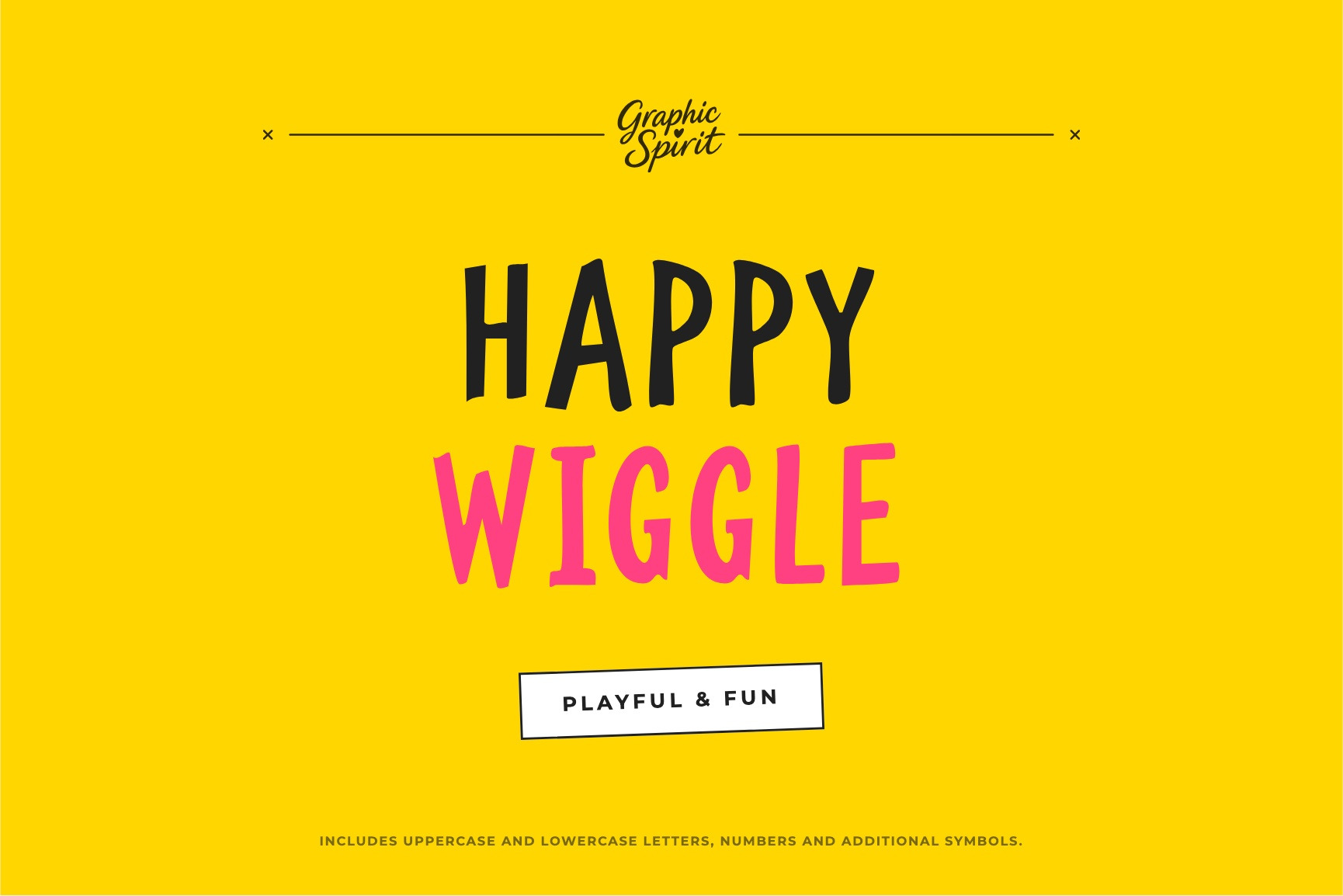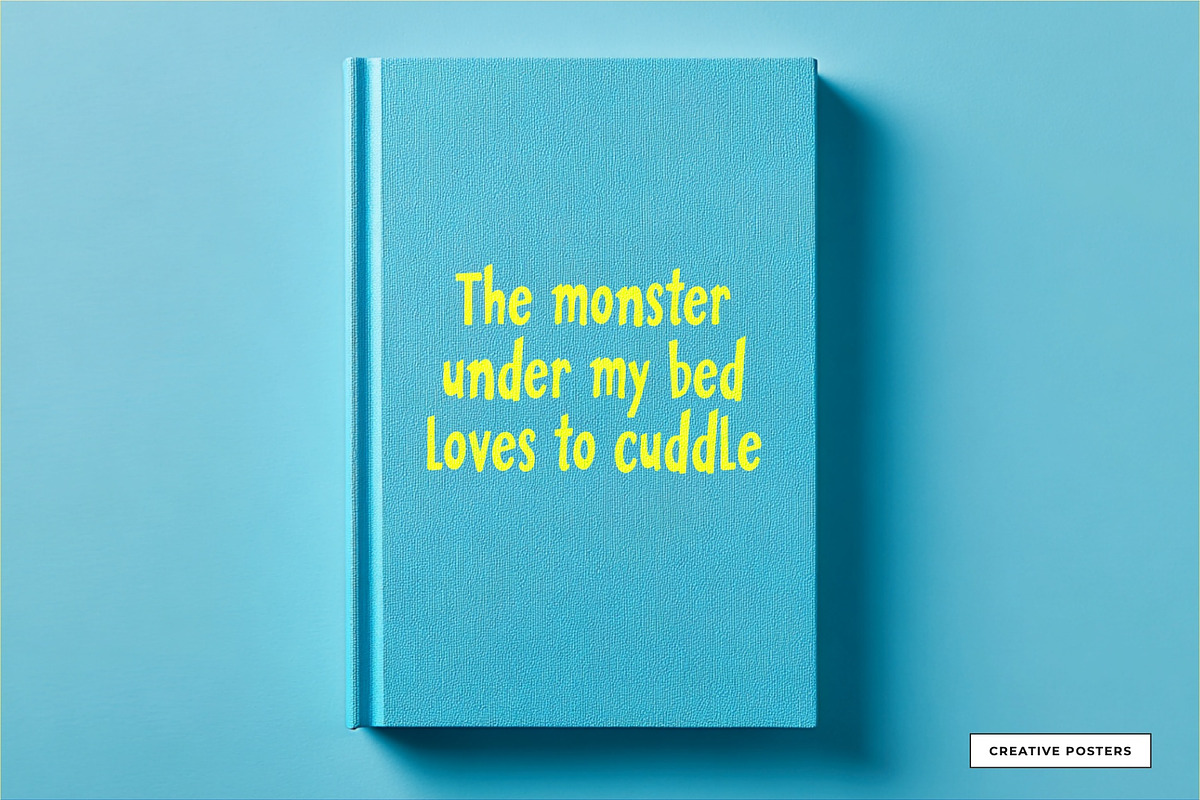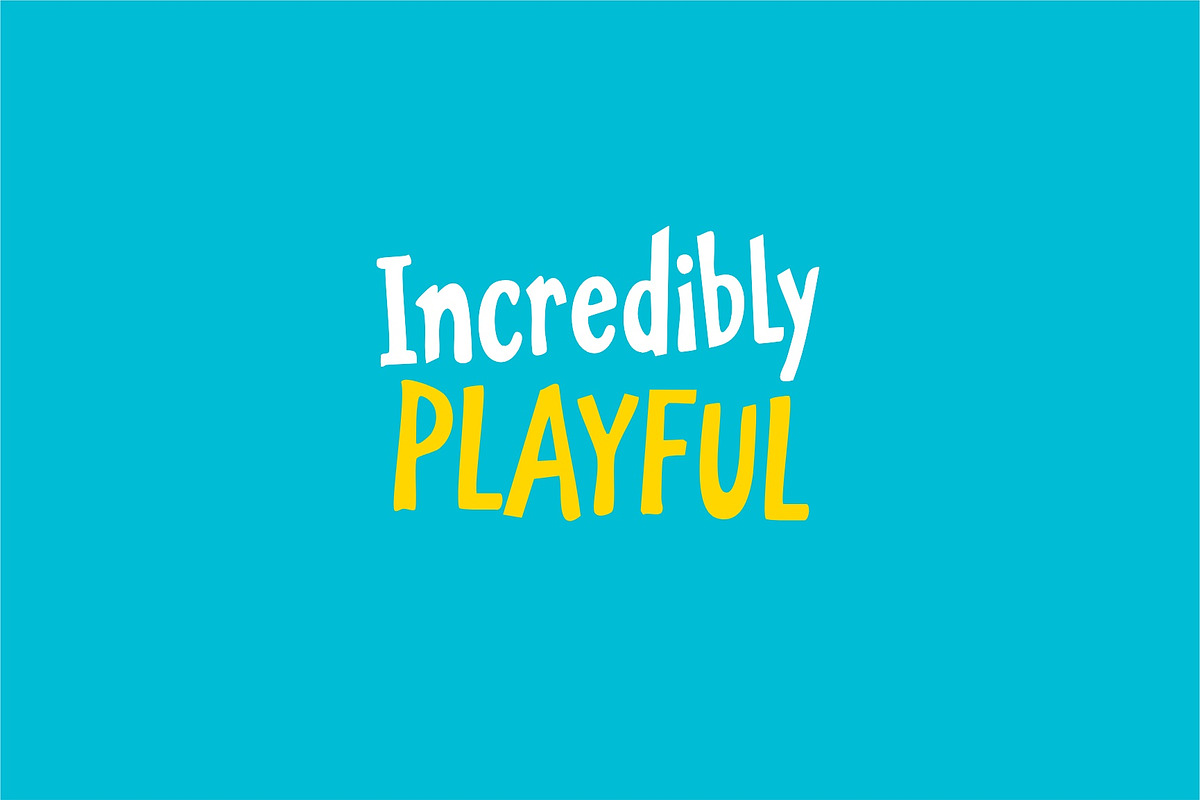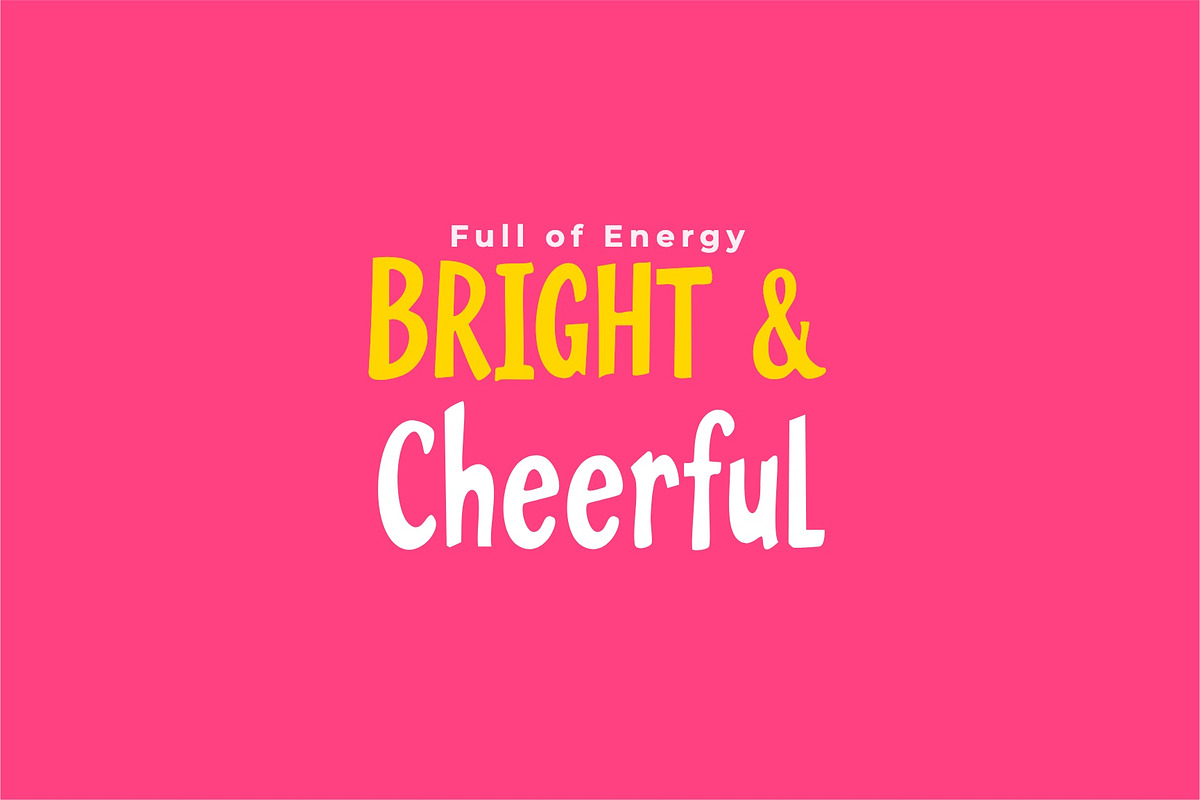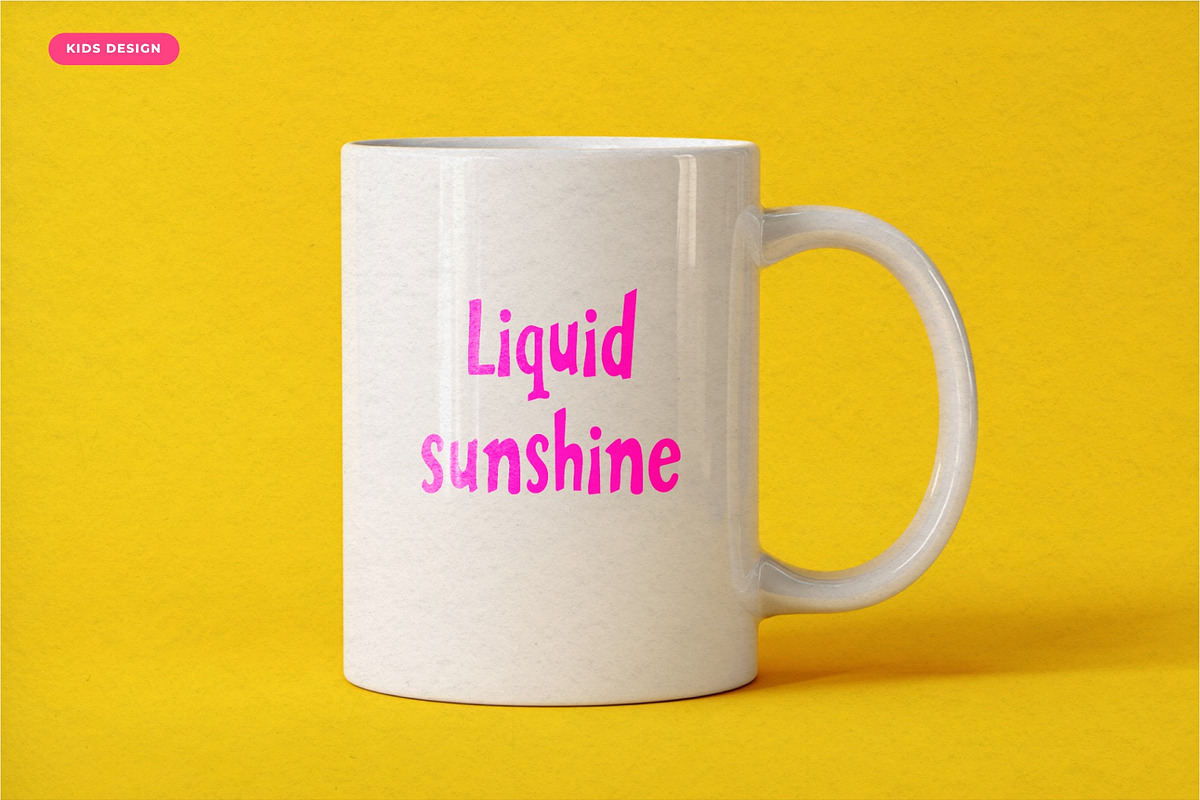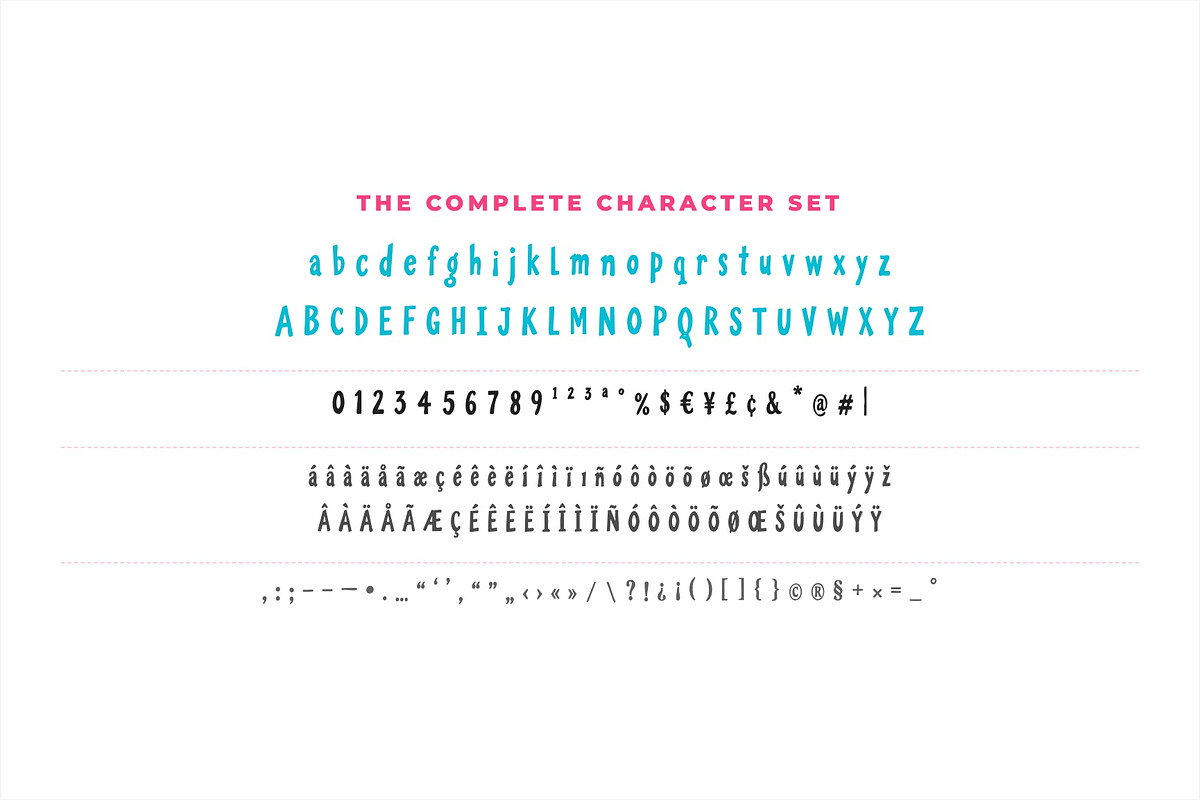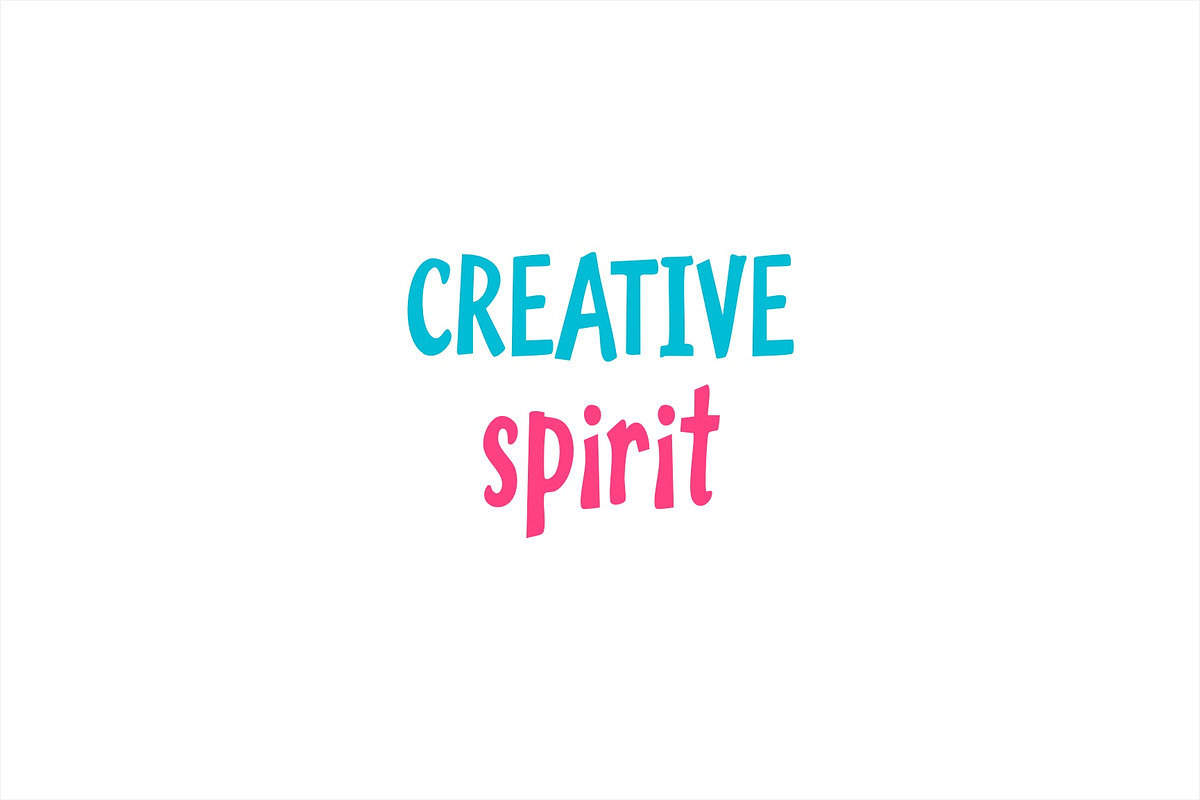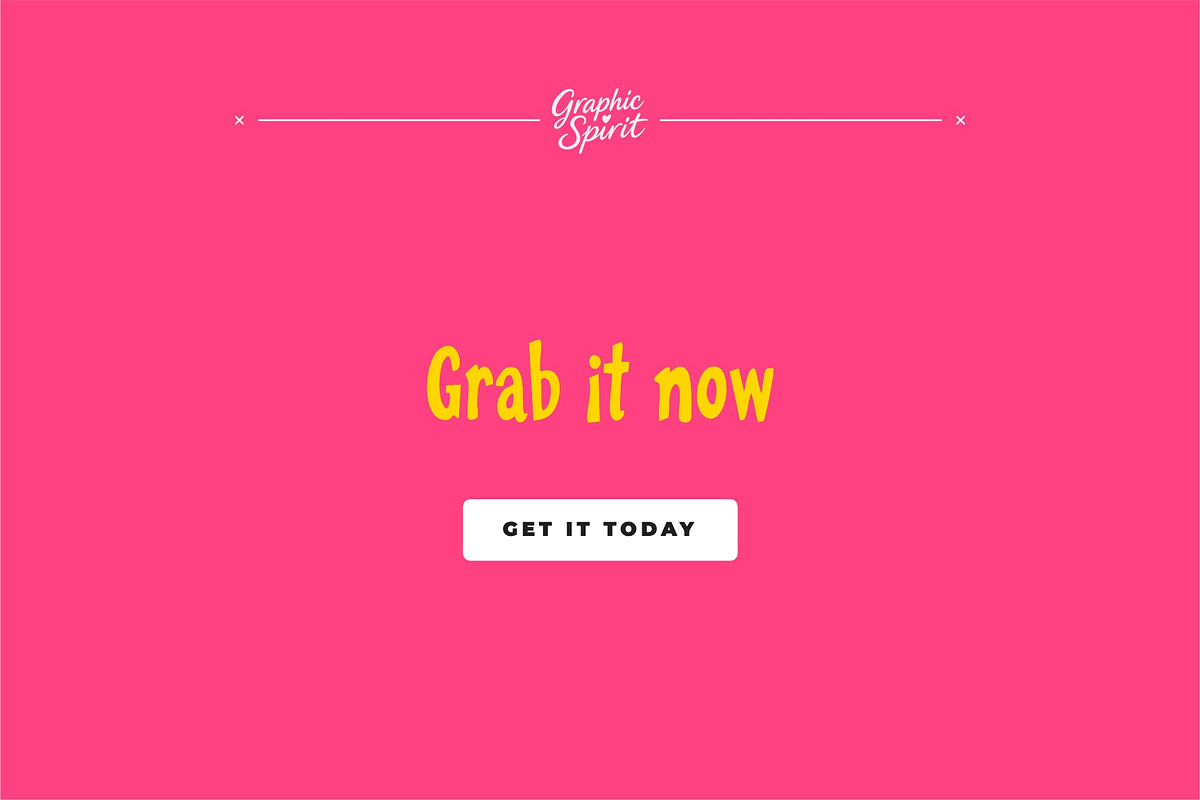
Happy Wiggle Decorative Font
Happy Wiggle is a bouncy, cheerful display font that delivers warm, joyful, and friendly energy to modern creative projects. This digital download features organic, hand-crafted wobbly letterforms—perfect for children's branding, playful toy packaging, greeting cards, café identities, stickers, and colorful social media content.
The font includes uppercase and lowercase letters, numbers, and a complete set of special symbols, offering full creative flexibility for cheerful typography. Happy Wiggle is built for designers who want their work to feel friendly, cozy, and full of human warmth. Use it to elevate kids' posters, food menus, t-shirts, and any project that calls for an irresistible happy vibe.